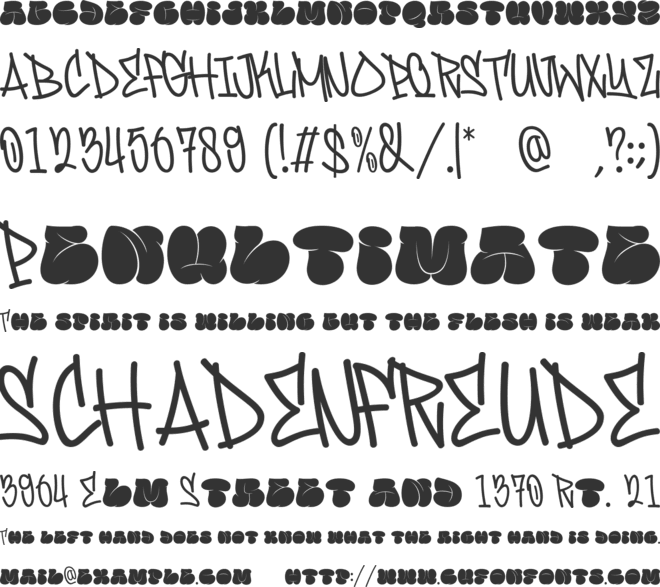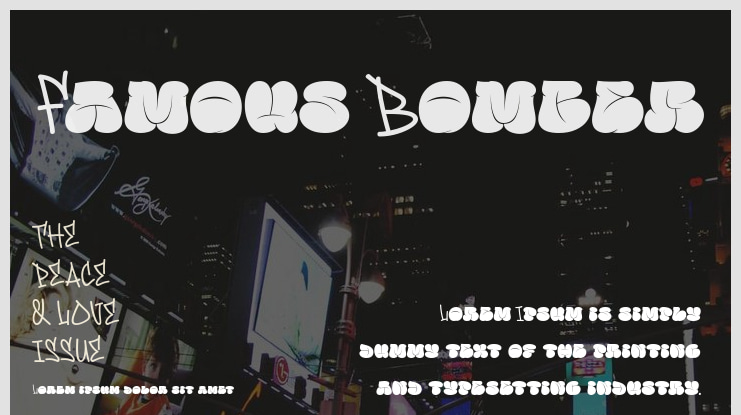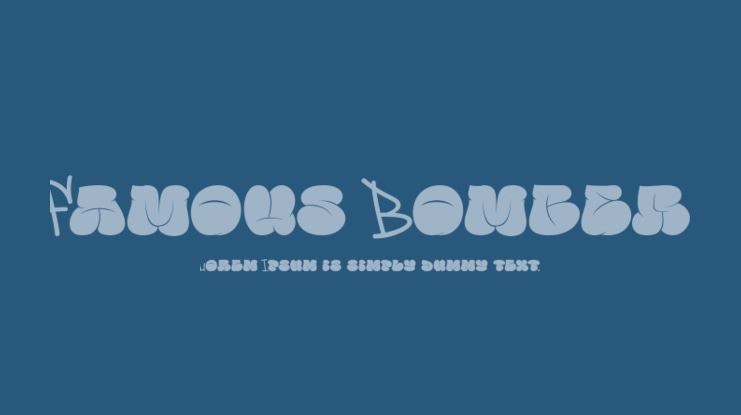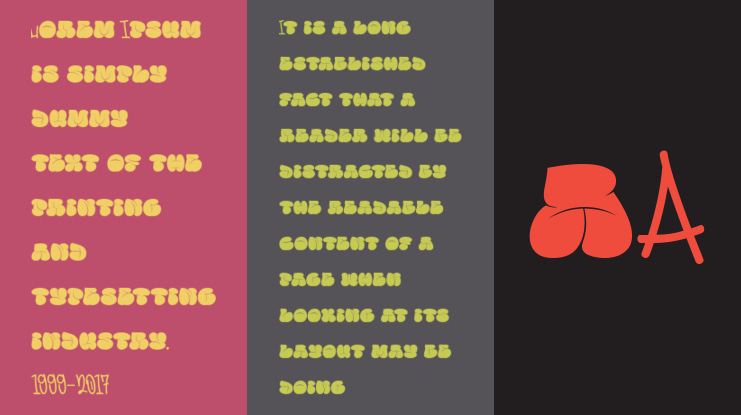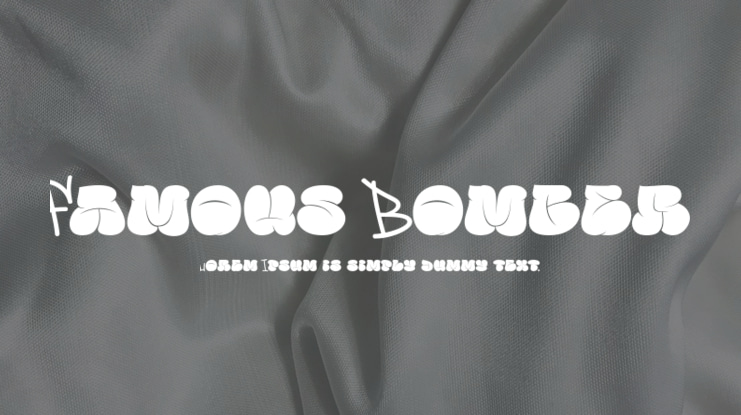
Famous Bomber Font
Ny Indrayana
Introducing “Famous Bomber” – a dynamic fusion of urban art graffiti bubble and expressive graffiti script, designed to bring an edgy and contemporary vibe to your projects. Inspired by the raw energy of street art culture, this font embodies the rebellious spirit and creative freedom synonymous with graffiti.